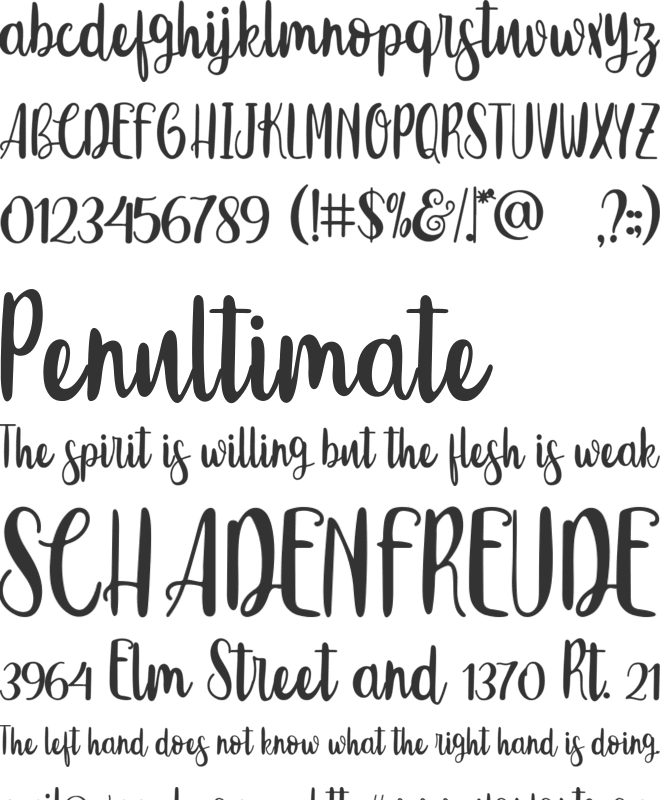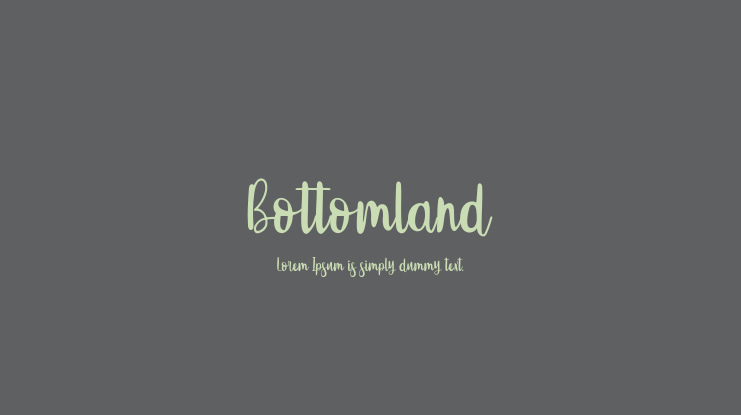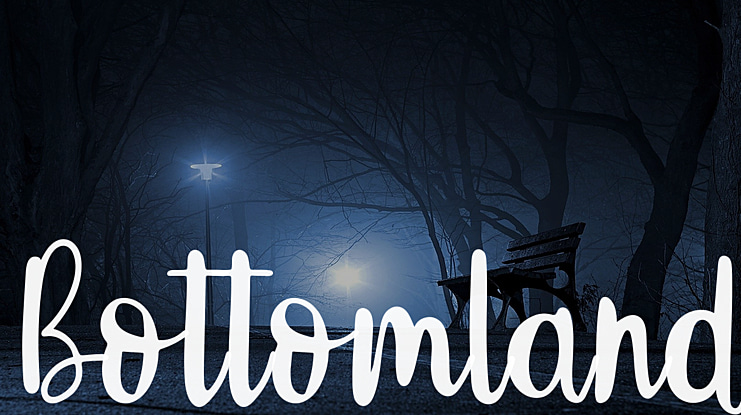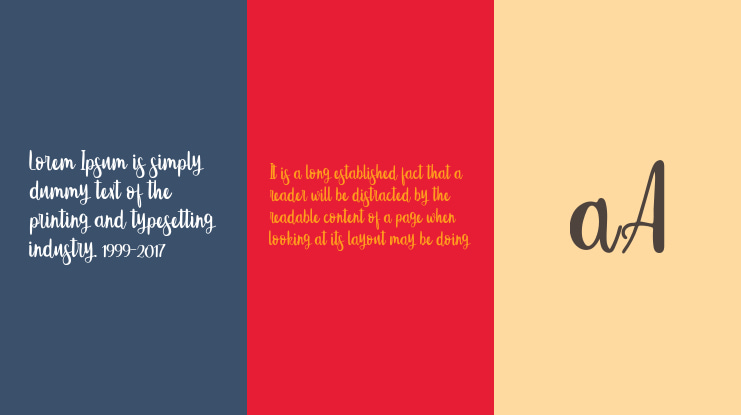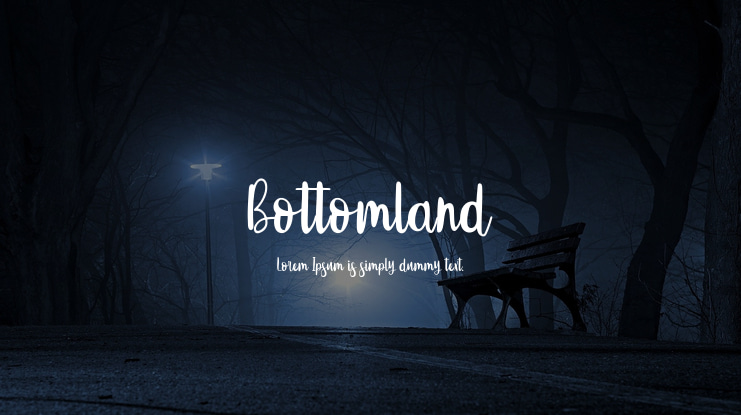
Bottomland Font
Bottomland is a beautifully flowing handwritten font. Elegant and stylish, this design is well-fitted for a variety of projects that need an original, unique, and fun touch!